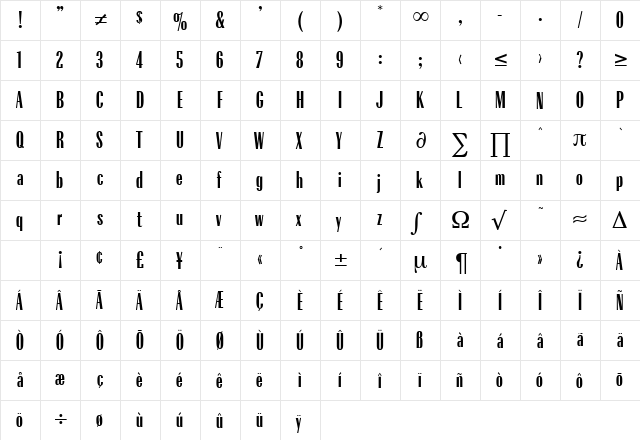
Radius Regular
Design Context for Radius Typeface
Radius takes a measured approach to typography — its balanced proportions and neutral character make it a reliable workhorse for both digital and print work.
Pro Tip: Use Radius in both headline and body roles to test its range before committing to a single application.